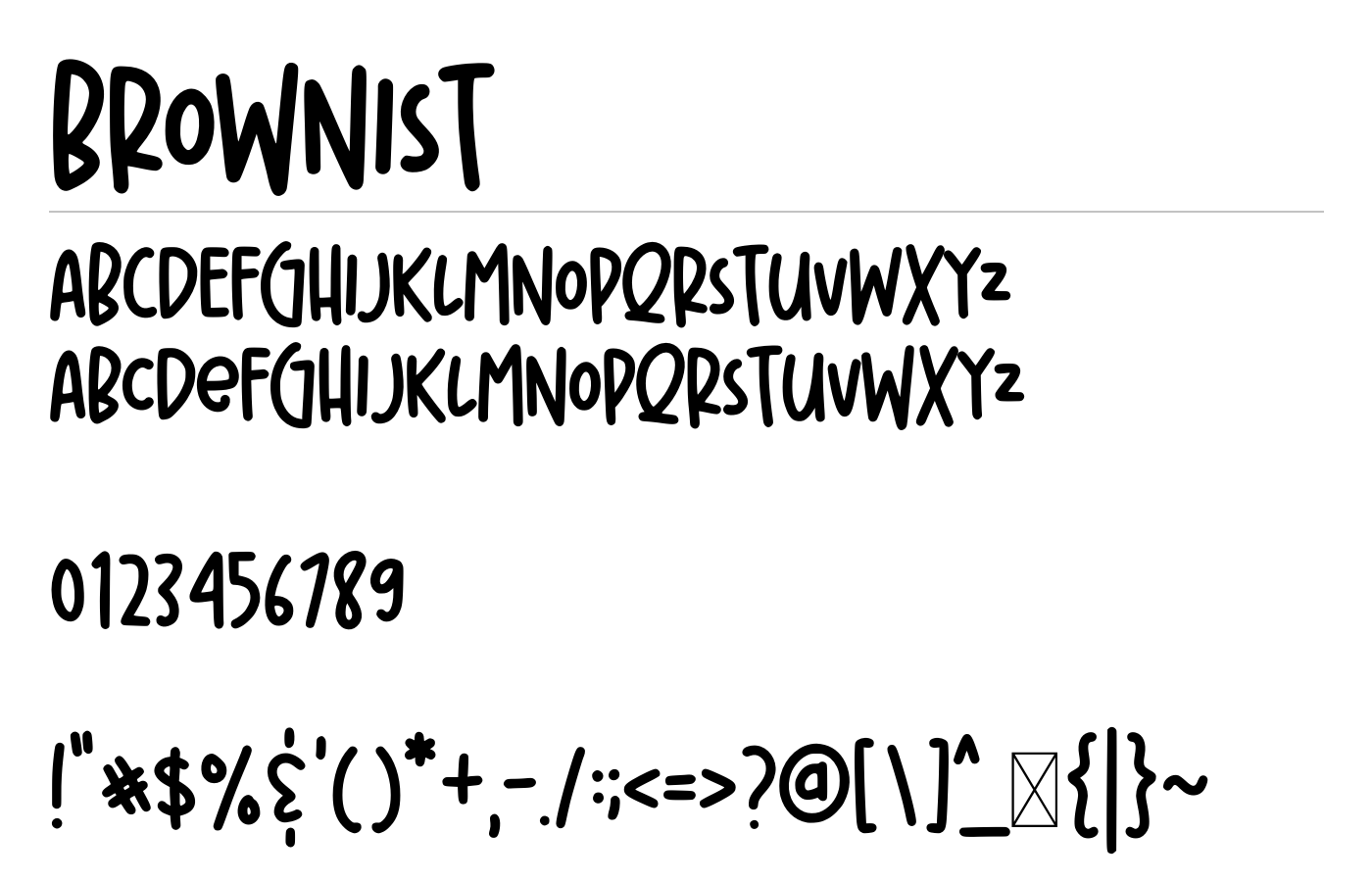
Brownist is a playful and informal handwritten sans serif font with a casual, friendly vibe. Its slightly tall and rounded letterforms, along with moderate spacing, make it perfect for creative projects, children's designs, and branding that seeks a warm, approachable personality. This font works well in headlines, invitations, and packaging where a lively, personal touch is desired.
Brownist Font
About Brownist Font
| Designer | Panggah Laksono @ ABo Daniel Studio |